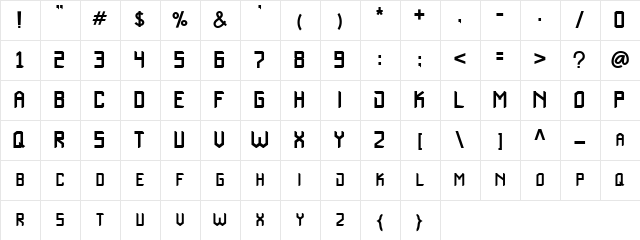
subakrie Regular
Design Context for subakrie Typeface
subakrie offers clean, dependable letterforms without strong stylistic allegiance, making it a practical choice for designers who need flexibility.